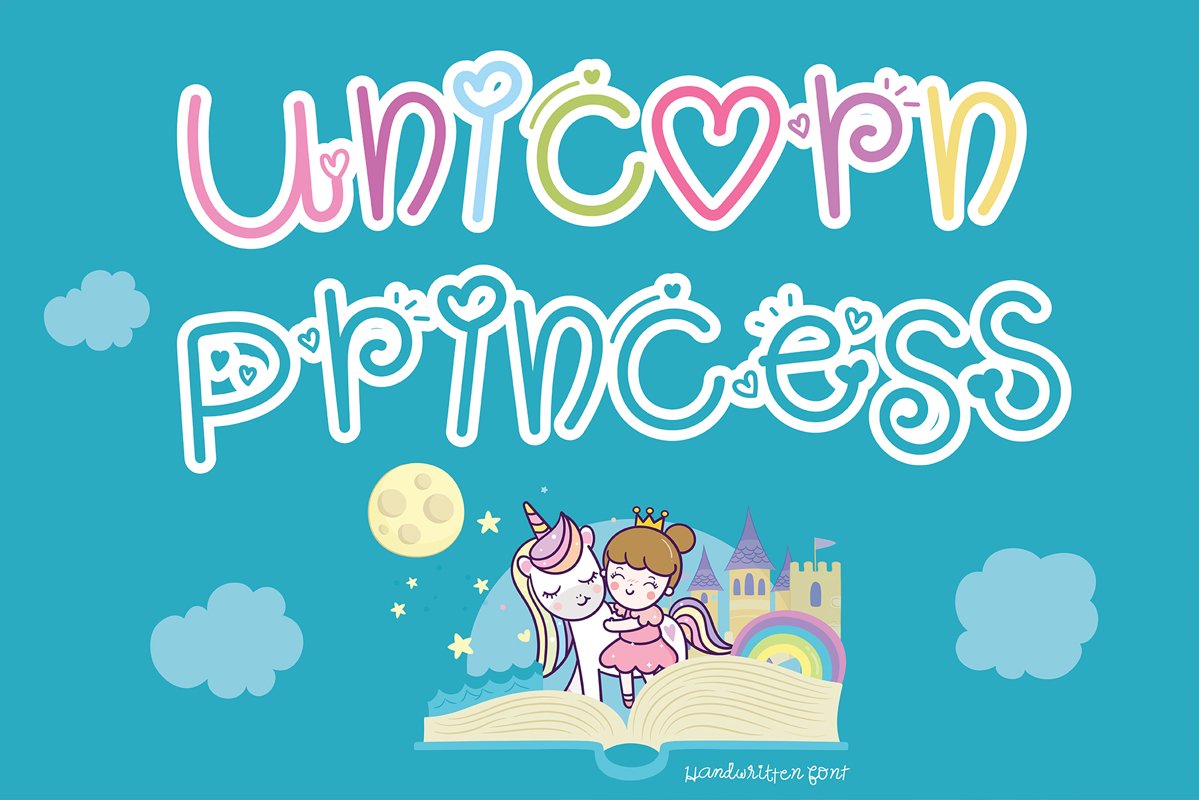
Unicorn princess Handwritten- Cute
font Kawaii style English language only
Are you looking for cute Handwritten
font for your project? Then you have come the right land!!
This Font is perfect for kid greeting
card, Print t shirt, fashion artworks or just play around.
Festival like Valentines Day, Kid's Party,
baby shower,wedding!!
Unicorn Princess